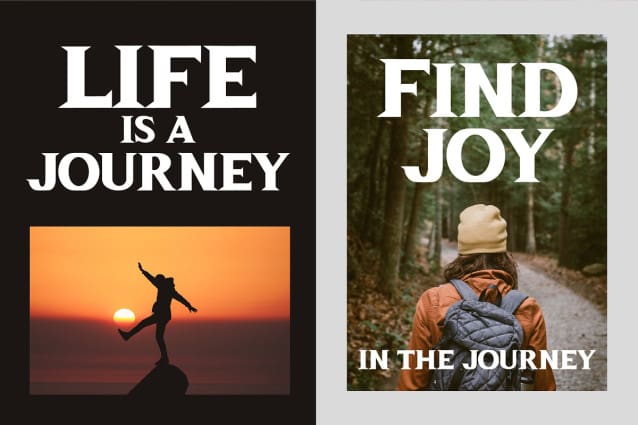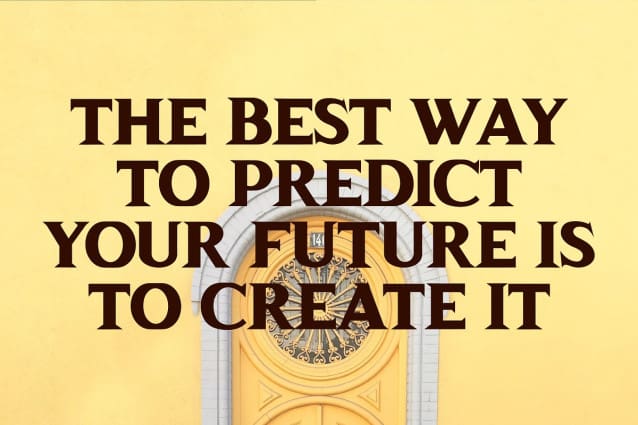
Last Guard Font
Last Guard Font, a bold serif display font that exudes timeless elegance and commanding presence. Designed for those who refuse to settle for the ordinary, LastGuard is the ultimate choice for projects that demand attention and sophistication.